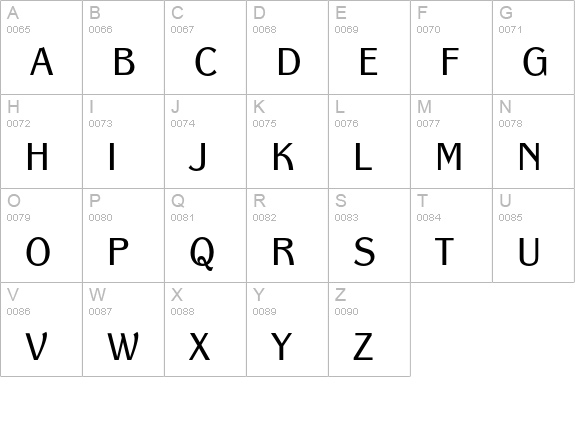
PanacheSCEF-Book Font Details
PanacheSCEF-Book is a comfortable, highly readable variant in the PanacheSCEF typeface family \xE2\x80\x94 well suited to long-form body text, articles, and editorial content.
PanacheSCEF-Book font is a delightful and sophisticated typeface that exudes elegance and charm. Its stylish and graceful curves are perfect for adding a touch of sophistication to any design project. With its clean and modern look, PanacheSCEF-Book font is versatile and can be used for a wide range of applications. One of the best things about PanacheSCEF-Book font is that it is completely free! That's right, this exquisite font is freely available to download at FontsMarket.com. Whether you're a professional designer or just someone who appreciates beautiful typography, you'll love having this font in your collection. The PanacheSCEF-Book font's timeless appeal makes it a great choice for a variety of design projects. From wedding invitations to branding materials, this font will add a touch of elegance and sophistication to any piece. Its legibility and readability make it perfect for both print and digital designs. The PanacheSCEF-Book font features a wide range of characters, including uppercase and lowercase letters, numbers, and punctuation marks. This comprehensive character set ensures that you'll have everything you need to create stunning designs with ease. So why wait? Download PanacheSCEF-Book font for free at FontsMarket.com and start adding a touch of panache to your design projects today. With its timeless beauty and versatility, this font is sure to become a staple in your collection.